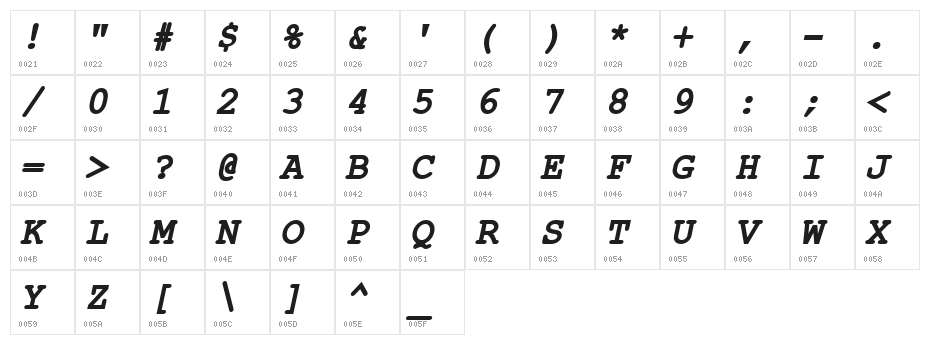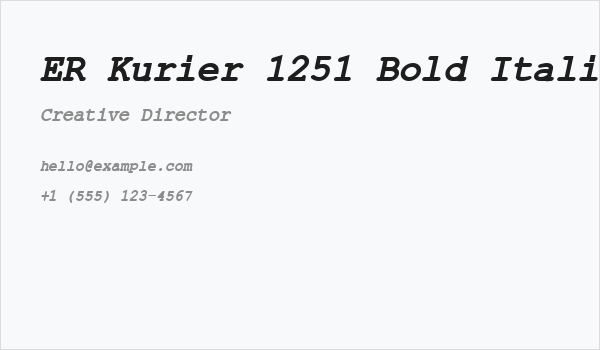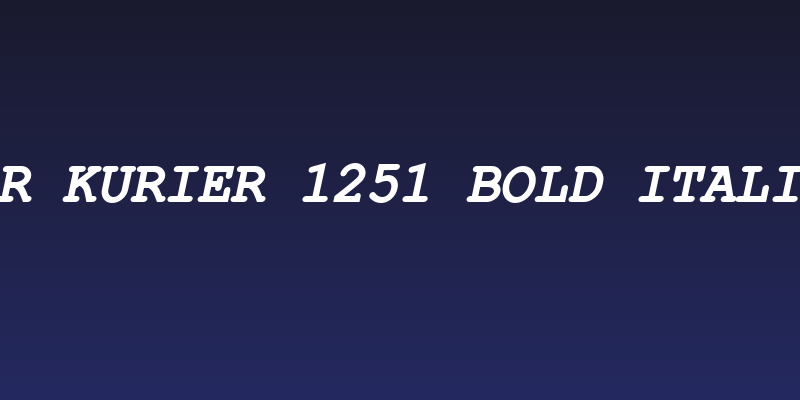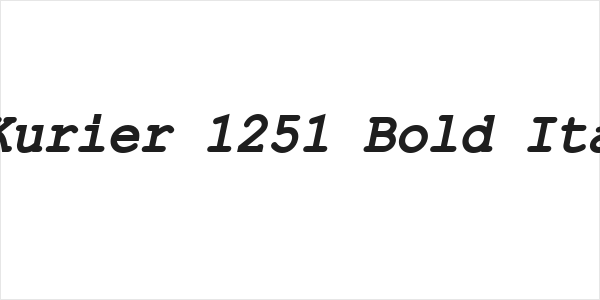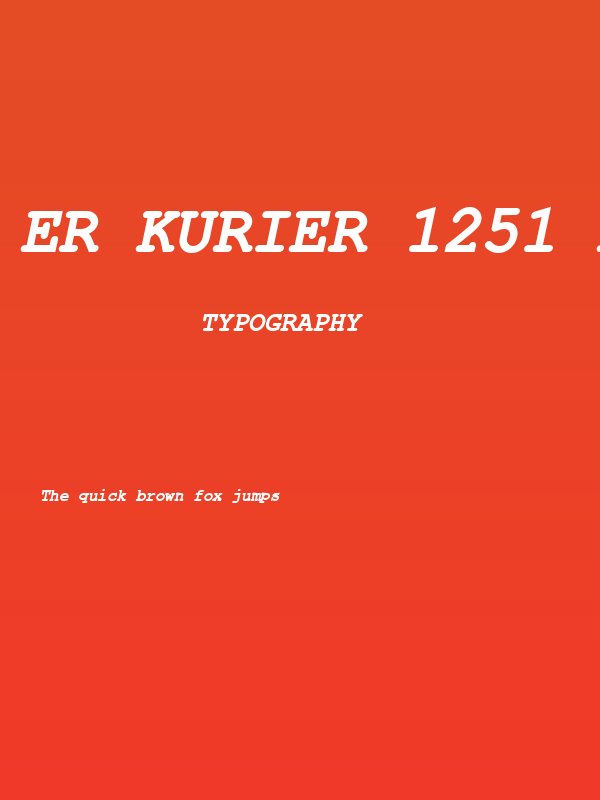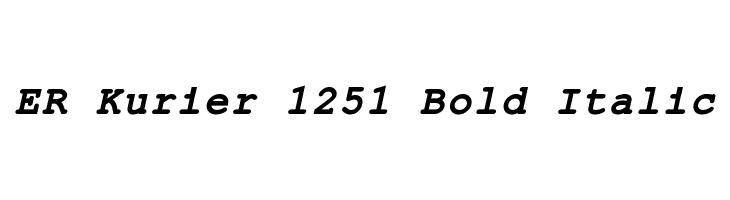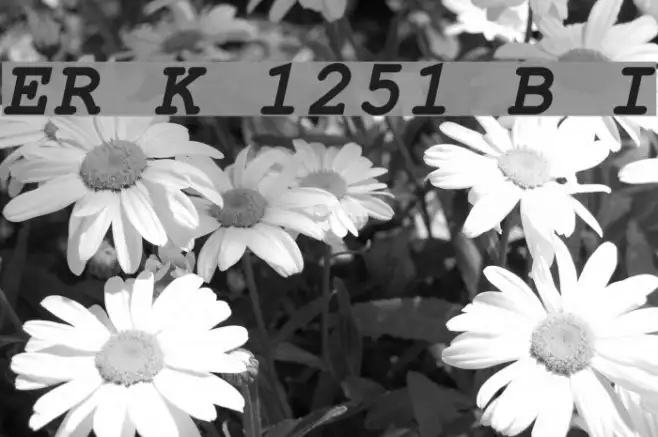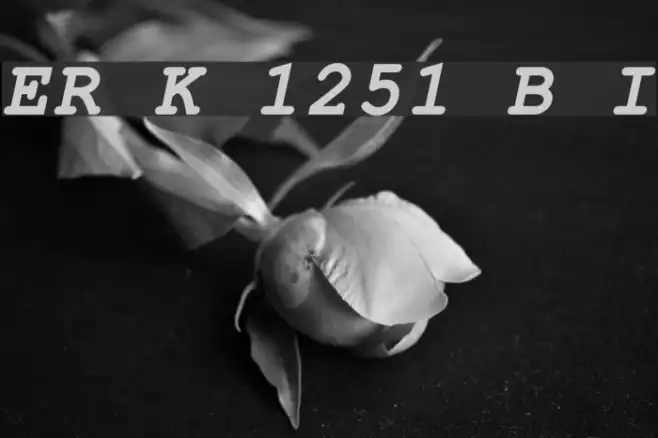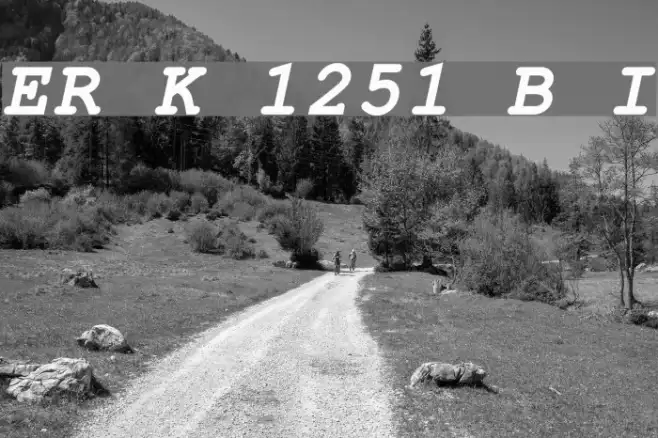
ER Kurier 1251 Bold Italic Font
ER Kurier 1251 Bold Italic Description
This font features a bold and italic style, characterized by its strong, slanted letterforms that convey a sense of dynamism and emphasis. The strokes are thick and consistent, providing a robust appearance that stands out. The italic angle adds a touch of elegance and movement, making it suitable for attention-grabbing headlines or titles. The characters are well-spaced, ensuring readability while maintaining a compact look. The numerals and special characters are designed to match the bold and italicized style, ensuring a cohesive appearance across all text elements.
| Proposed Projects | Ideal for headlines, posters, branding materials, and any project requiring a bold, eye-catching typeface. |